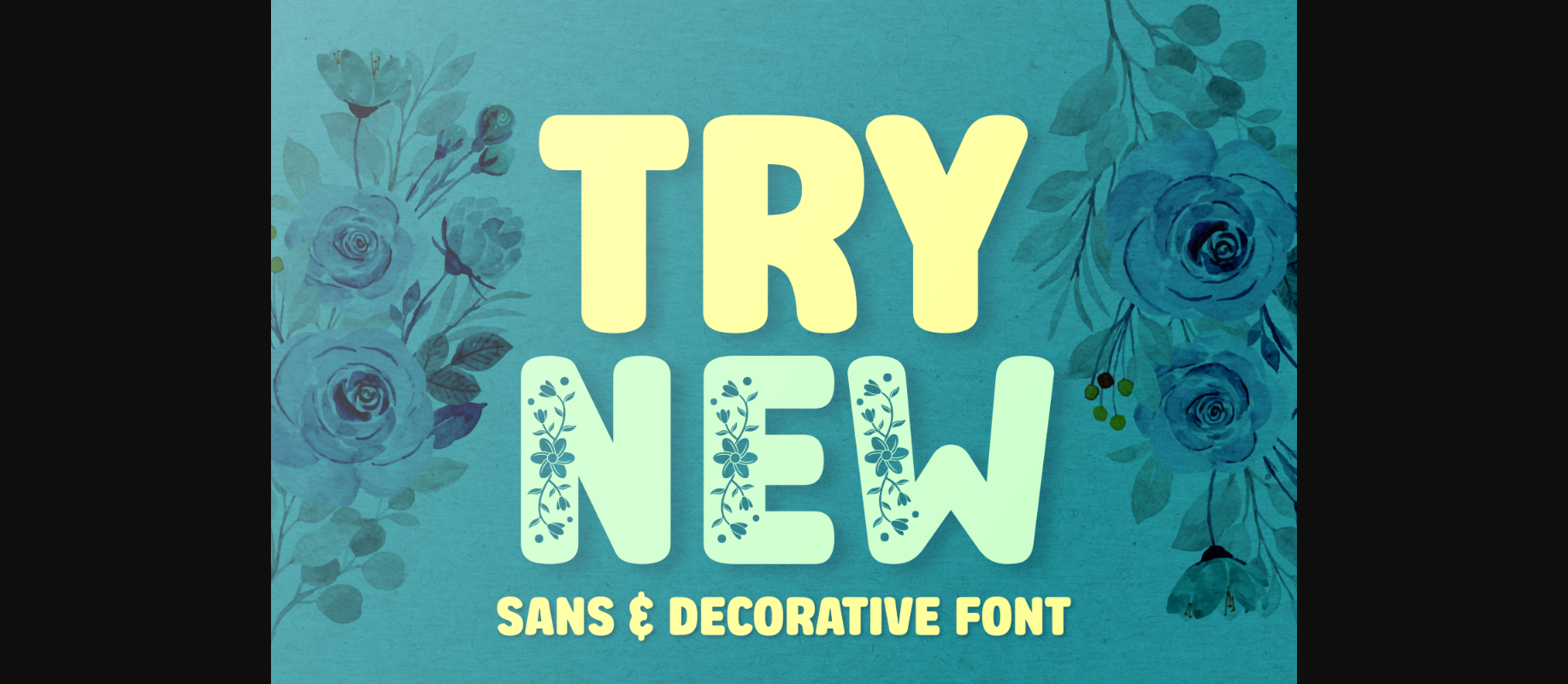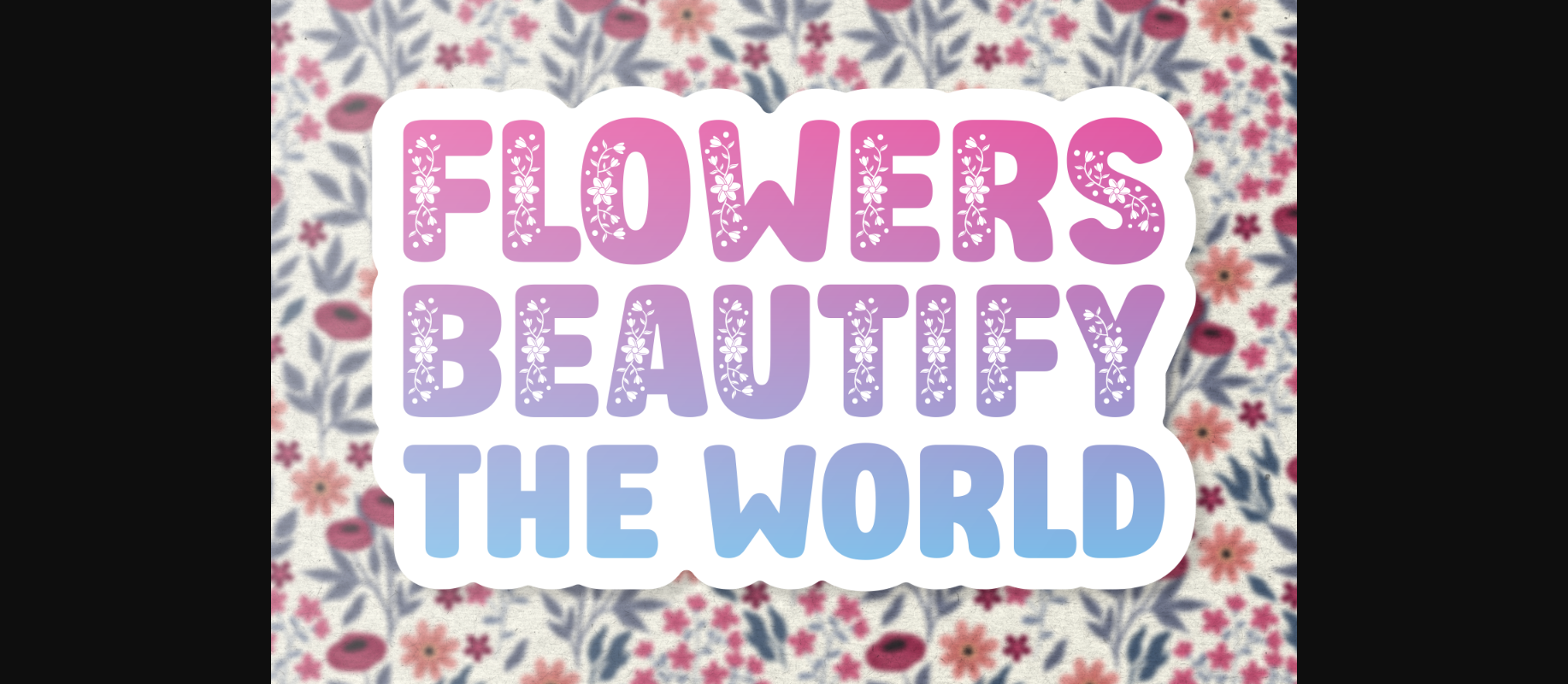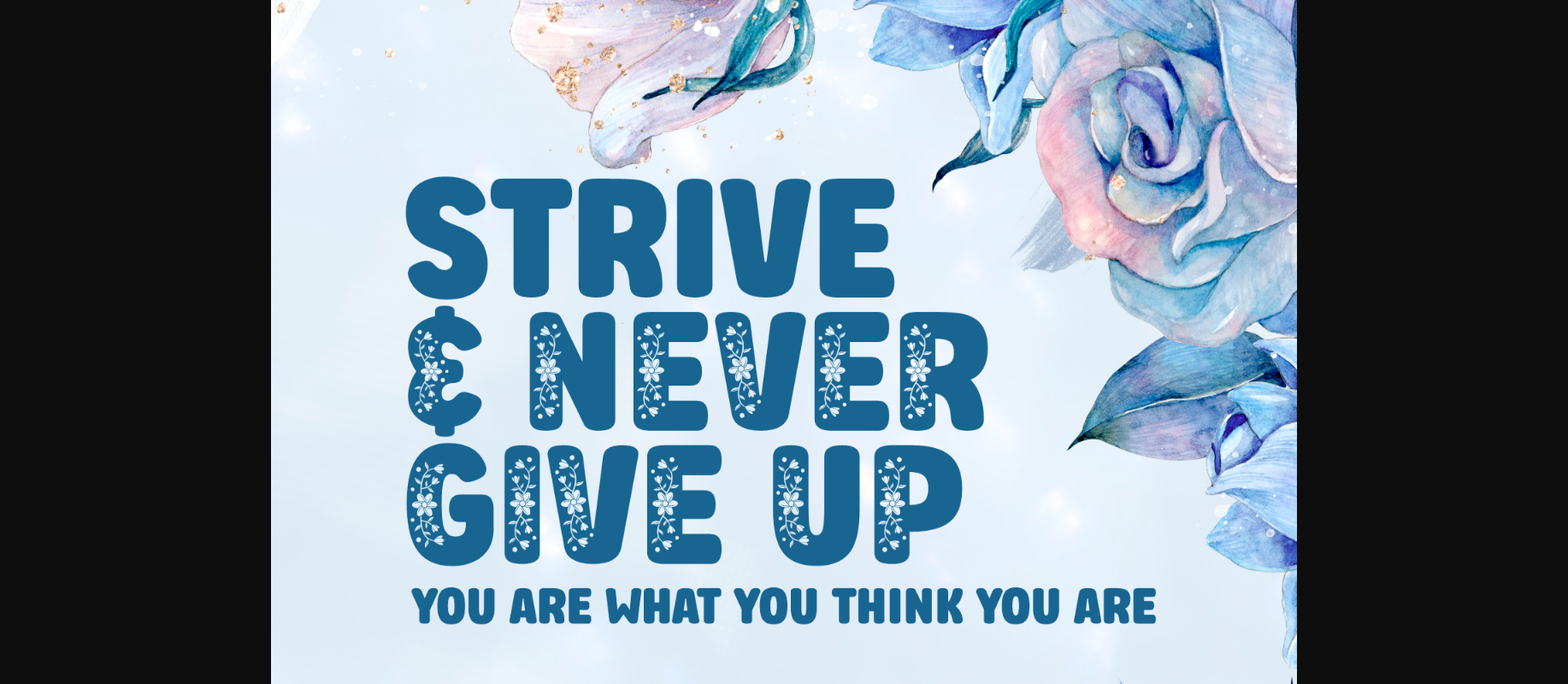
Try New Font
About Try New Font
Try New is a lovely duo font (display and decorative). It embodies freshness and authenticity and is the perfect choice for any children activity or school project. Add this chunky lettered font to your designs and notice how it makes them come alive!